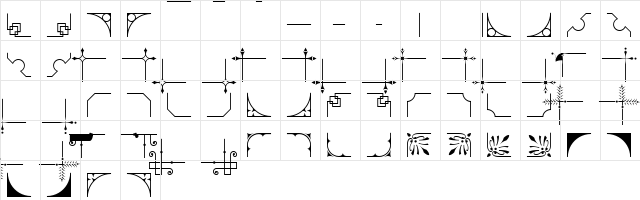
HotmetalBorders Medium
Design Context for HotmetalBorders Typeface
HotmetalBorders is a composed and adaptable typeface that performs quietly and consistently across a wide range of design contexts.